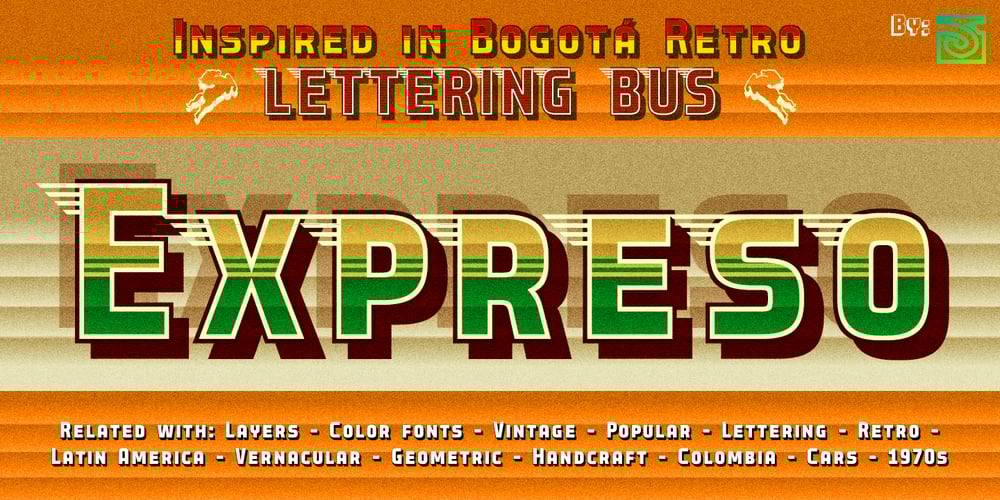
Expreso Font Family was designed by John Vargas Beltrán and published by JVB Fonts. Expreso contains 23 styles and family package options. EXPRESO was inspired by the extinct art and craft of urban Lettering applied to buses and other kind of cars for public service of transportation. Since the mid of last century, main cities of Colombia – as Bogotá, Medellín and others – were growing in population and brought urban area expansion with it and serious traffic problems due to the lack of political will and urban planning. The problem of urban transport in Colombia’s largest cities has not yet been resolved, despite adopting some examples of mass transit system in other cities in the region. Before these actions, public transport in cities such as Bogotá was quite varied, leaving space for popular culture that survived for a couple of decades, until the massive dieback of these old buses early this decade, either by practices associated with Lettering it was displaced by some technological, some expressions of art street and city that evolved or disappeared. EXPRESO can be used mainly in titles and display texts. You have a multitude of options using combination of layers from the basics of the font family to the various textures and shades. Supports East Europe languages.